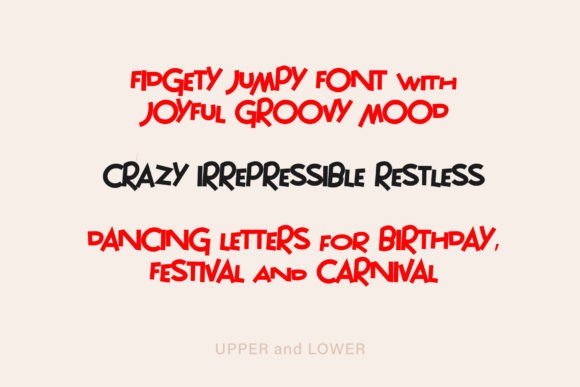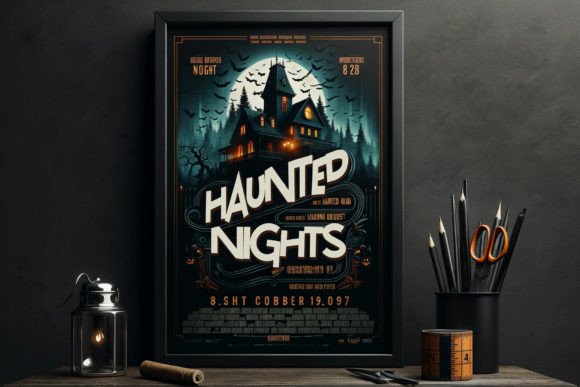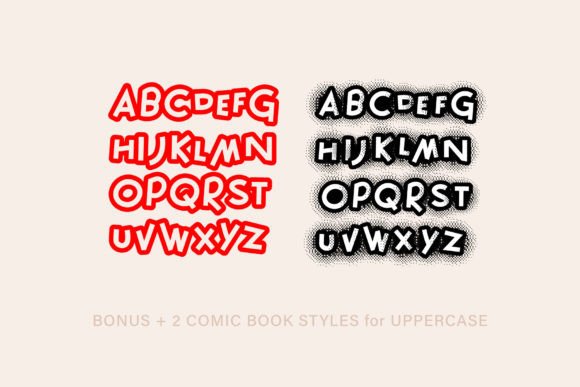
Embrace the Joyful Chaos with the Fidget Font!
Are you tired of using the same old fonts in your designs? Do you want to add a touch of playful energy to your projects? Look no further than the Fidget font! This lively and exuberant font embodies a joyful, groovy mood that’s perfect for creating eye-catching headlines and vibrant graphics.
What is the Fidget Font?
The Fidget font is a unique and energetic font that’s designed to bring a sense of fun and spontaneity to your designs. Its dancing letters are unlike any other font out there, making it perfect for adding a touch of whimsy to your projects. Whether you’re designing for birthdays, festivals, or carnivals, the Fidget font is sure to bring a smile to your audience’s faces.
Key Features of the Fidget Font
- Style: Crazy, Irrepressible, and Restless – The Fidget font is all about energy and movement. Its letters are designed to look like they’re dancing, making it perfect for creating dynamic and eye-catching graphics.
- Mood: Joyful and Groovy – The Fidget font embodies a joyful and groovy mood that’s perfect for creating festive and celebratory designs.
- Use Case: Ideal for birthday invitations, festival banners, carnival posters, and any other celebratory or energetic design project. The Fidget font is perfect for any project that needs a touch of playful energy.
Who is the Fidget Font For?
The Fidget font is perfect for designers and marketers targeting a young, vibrant audience. This includes:
- Event Organizers: Party planners, event coordinators, and anyone looking to create a festive and dynamic atmosphere will love the Fidget font.
- Party Planners: If you’re planning a birthday party, festival, or carnival, the Fidget font is a great choice for creating eye-catching invitations and promotional materials.
- Designers and Marketers: If you’re looking for a font that will help your designs stand out, the Fidget font is a great choice. Its unique and energetic style is sure to grab attention and leave a lasting impression.
Why Choose the Fidget Font?
There are many reasons why you should choose the Fidget font for your next design project. Here are just a few:
- Unique and Eye-Catching: The Fidget font is unlike any other font out there. Its dancing letters are sure to grab attention and make your designs stand out.
- Playful Energy: The Fidget font brings a sense of playful energy to your designs, making it perfect for creating festive and celebratory graphics.
- Versatile: The Fidget font can be used for a wide range of design projects, from birthday invitations to festival banners.
How to Use the Fidget Font
Using the Fidget font is easy! Here are a few tips to get you started:
- Pair it with Other Fonts: The Fidget font pairs well with other fun and playful fonts. Try pairing it with a bold, sans-serif font for a dynamic and eye-catching look.
- Use it for Headlines: The Fidget font is perfect for creating eye-catching headlines. Use it to add a touch of playful energy to your titles and headings.
- Experiment with Colors: The Fidget font looks great in bright, bold colors. Experiment with different colors to find the perfect look for your design.
The Fidget font is a unique and energetic font that’s perfect for adding a touch of playful energy to your designs. Its dancing letters and joyful, groovy mood make it ideal for creating eye-catching headlines and vibrant graphics. Whether you’re designing for birthdays, festivals, or carnivals, the Fidget font is sure to bring a smile to your audience’s faces. So why not give it a try and see how it can add a touch of joyful chaos to your designs?